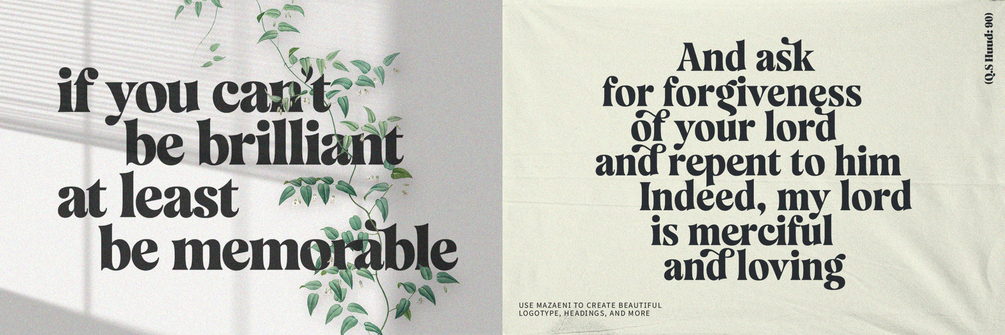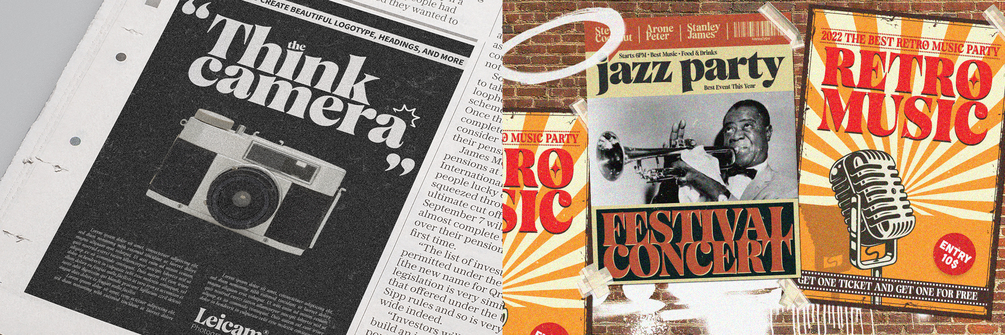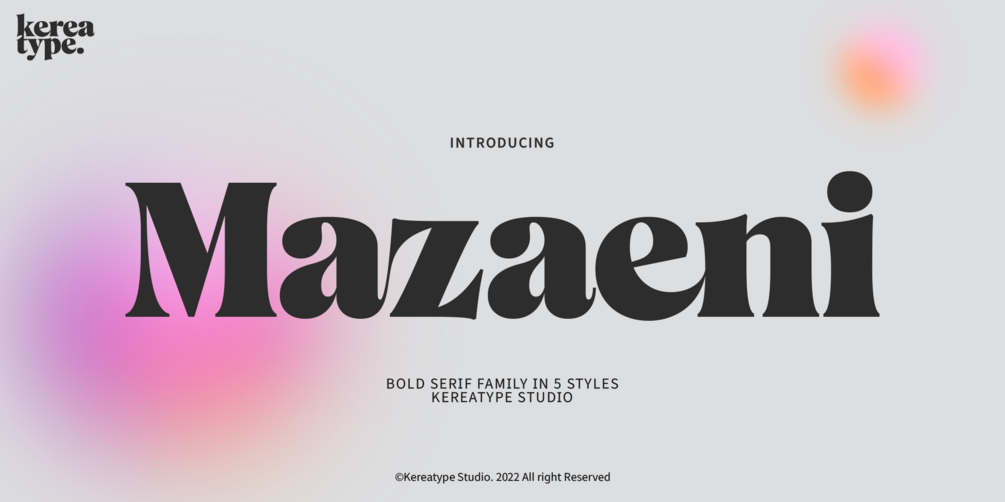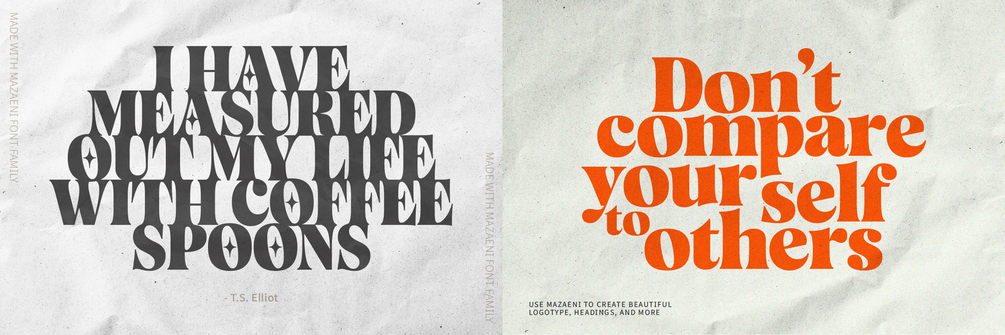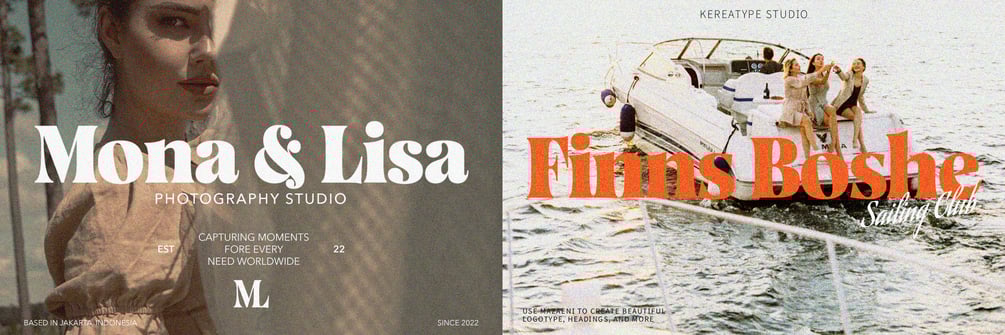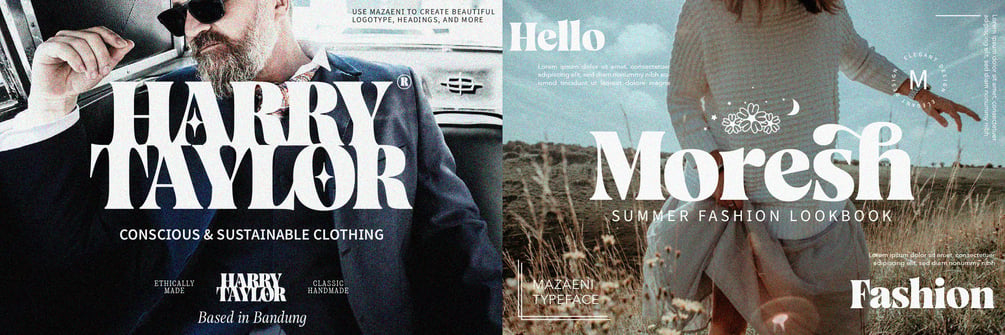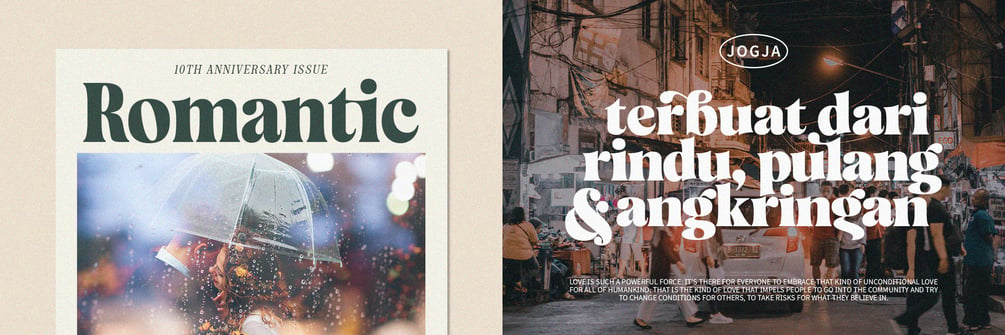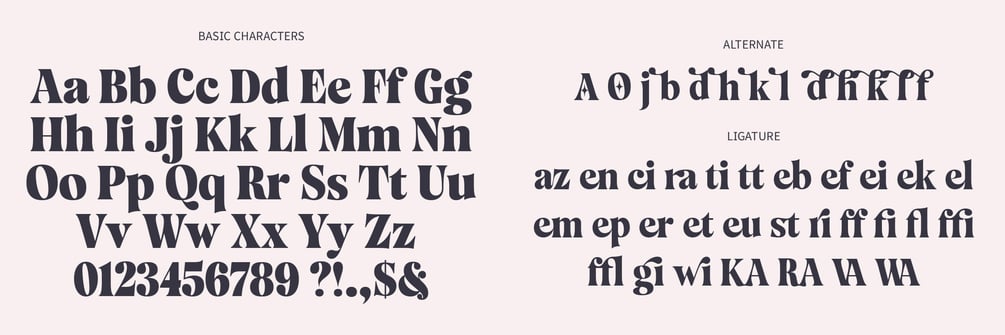
Mazaeni - Bold Serif Family
Mazaeni is a bold serif font family that includes 5 Weight regular to Extra Black which is inspired by something simple, elegant, usable, and versatile.
Mazaeni is a daring and playful display typeface perfect for logotypes, posters, and editorial use. Includes wide language support, optional ligatures, OpenType alternates, and more.
Features:
• Stylistic Alternates
• Standard & Discretionary Ligatures
• Multilingual characters
5 Styles with 426 Glyphs each Including Multilingual Support